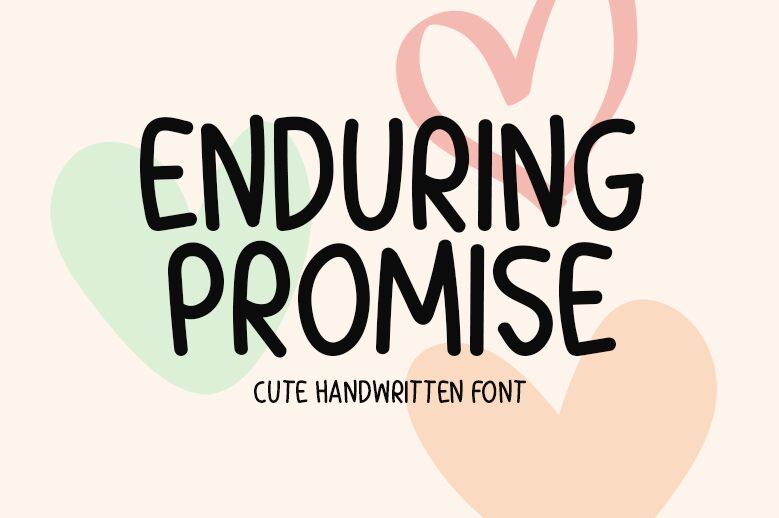
Enduring Promise, a handwritten font crafted by designer Md Shohail Bhuian, exudes a captivating blend of elegance and warmth. Its flowing, expressive strokes convey a sense of sincerity and authenticity, inviting the viewer to connect with the written word on a deeper level.
The font's organic, naturalistic aesthetic lends itself beautifully to a range of design applications, from heartfelt stationery to rustic branding, evoking a timeless, handcrafted charm. Enduring Promise's versatility shines through, seamlessly transitioning between formal and informal settings, catering to the needs of both calligraphic and typographic projects.
With its distinctive character and timeless appeal, this font promises to leave a lasting impression, capturing the essence of genuine human connection in every stroke.